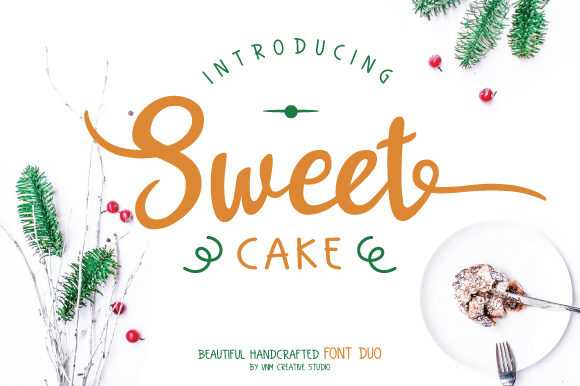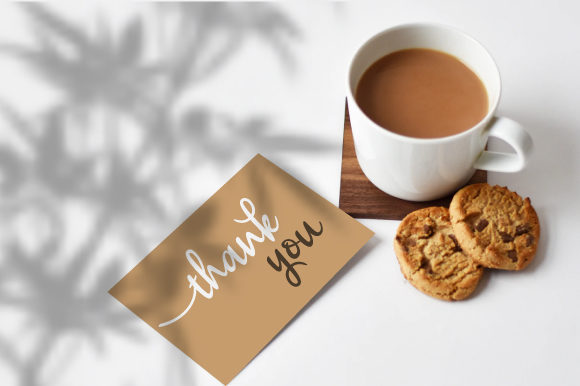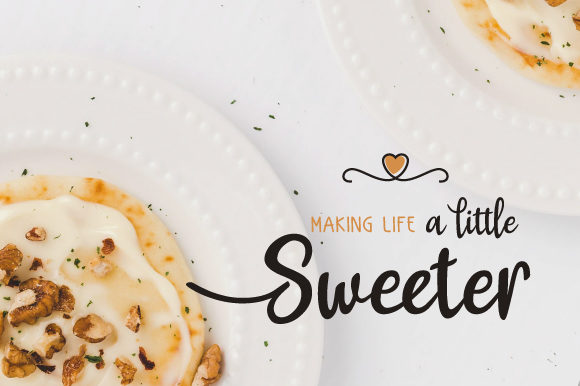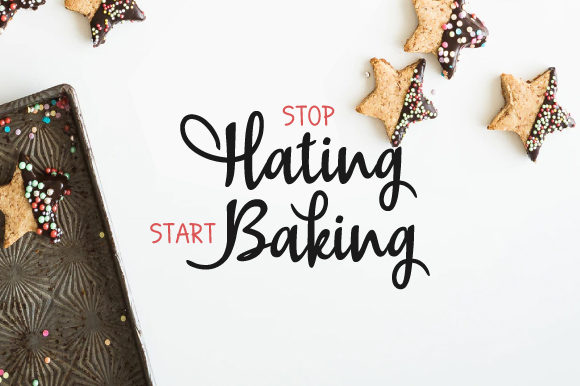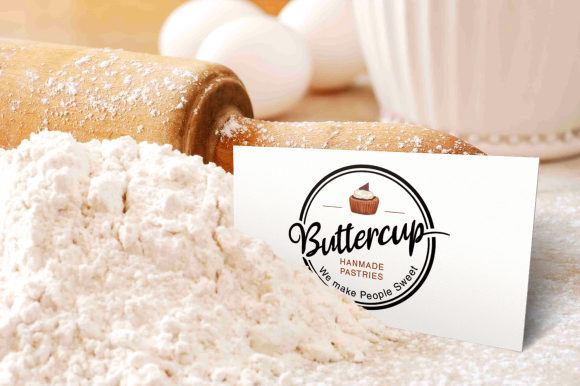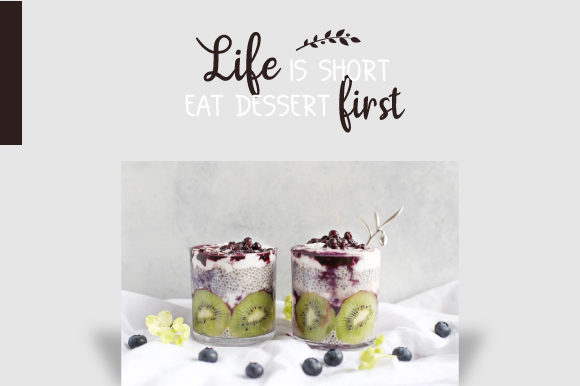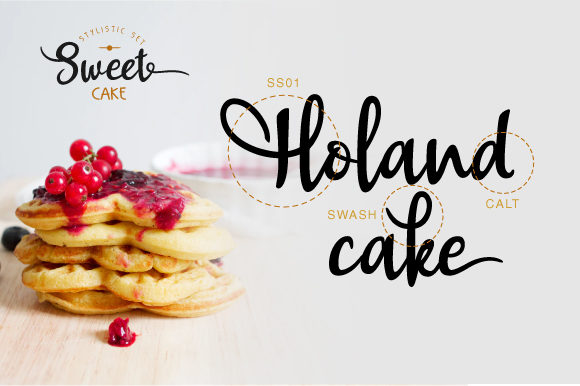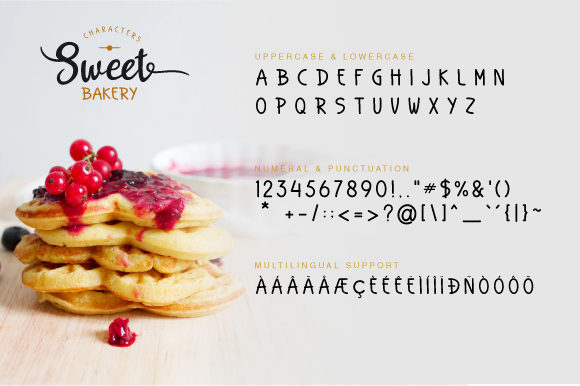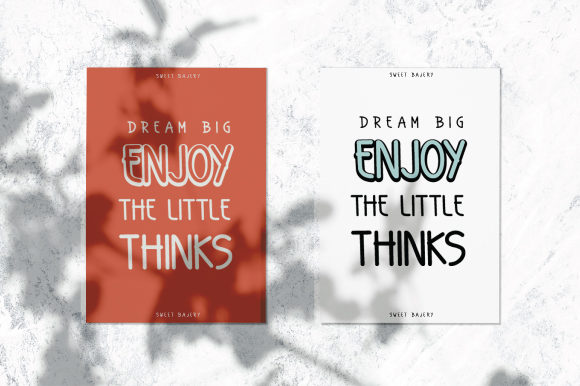
HomeScript FontsSweet Cake Font Script Fonts Sweet Cake Font FacebookXPinterestWhatsApp Sweet Cake Font Poster 2 Sweet Cake Font Poster 3 Sweet Cake Font Poster 4 Sweet Cake Font Poster 5 Sweet Cake Font Poster 6 Sweet Cake Font Poster 7 Sweet Cake Font Poster 8 Sweet Cake Font Poster 9 Sweet Cake Font Poster 10 About Sweet Cake Font Sweet Cake is a lovely and cool handwritten font with a unique style. Get inspired by its lovely feel. DOWNLOAD NOW People also explored Spring Time Font Baking Pastry Font Browny Joy Font Umbrella Font Heather Team Purple Bella Canvas 3001 Butter Cupcake Font Fesch Cheerful Flora Monogram Font Love Heart Duo Font 306 0 TagsSweet Cake Font Previous articleAnteiku FontNext articleAuristela Script Font LEAVE A REPLY Cancel reply Comment: Please enter your comment! Name:* Please enter your name here Email:* You have entered an incorrect email address! Please enter your email address here Website: Save my name, email, and website in this browser for the next time I comment. Personal Use Free Monogram Veg Personal Use Free Read more about this font Strings Personal Use Free Read more about this font Fillguy Font Personal Use Free Read more about this font Nuku Nuku Personal Use Free Read more about this font BLOG The 10 Best Handwriting Fonts to Add Personality to Your Designs 10 of the Best Handwriting Fonts for Adding Personality to Your Designs There will undoubtedly be no other better choice than handwriting fonts to give... Elegant Wedding Invitation Fonts – Handwritten & Script Fonts Free Fonts Risk: Why Free Fonts Can Be Dangerous for Designers Top 7 Google Fonts Alternatives for Faster and Privacy-Friendly Web Design (2025)